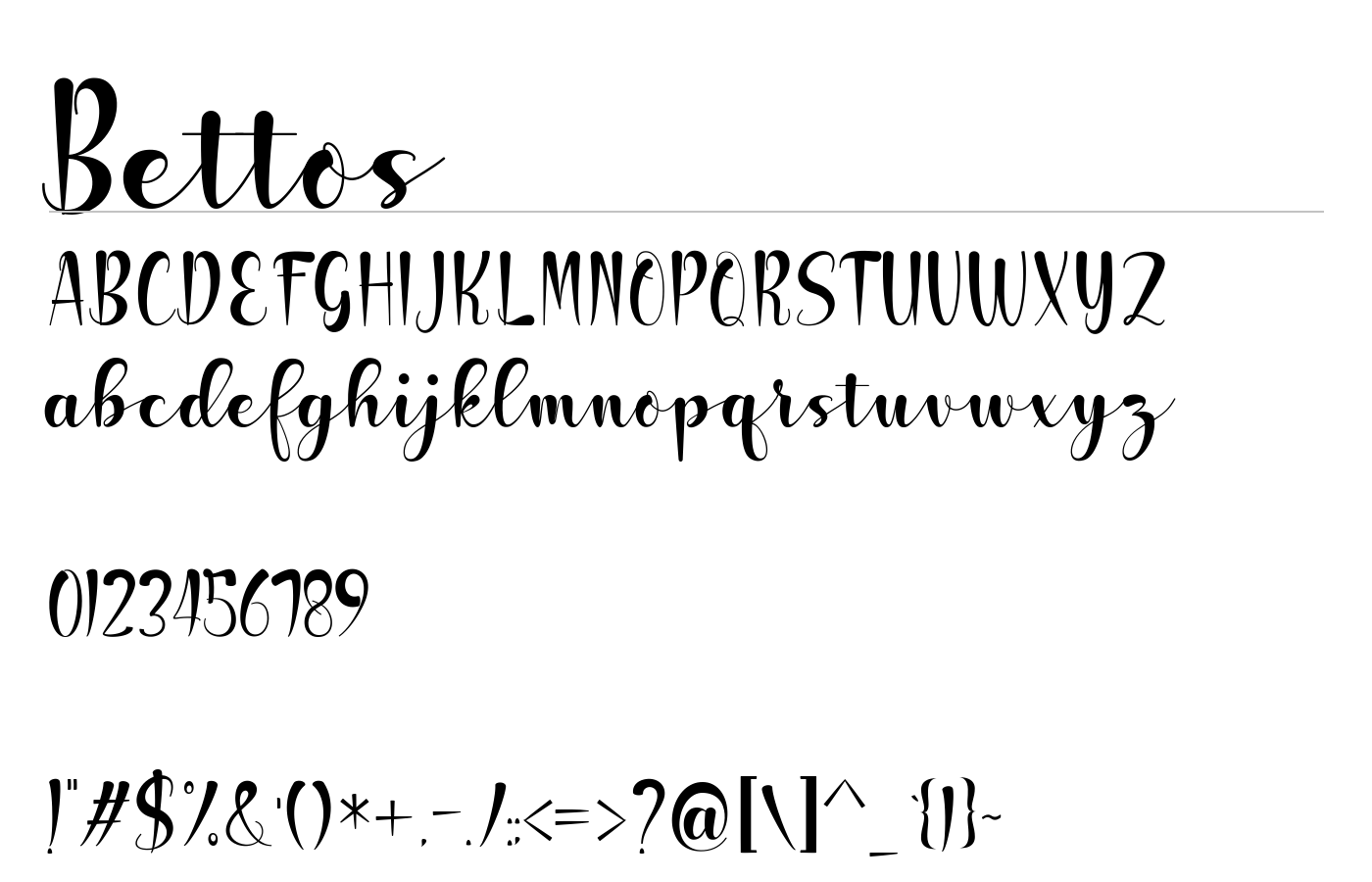
Bettos is a playful and elegant script font with tall, slender letterforms that combine smooth curves and delicate strokes. Its unique mix of thick and thin lines, along with quirky swashes and flourishes, gives it a hand-crafted, stylish feel perfect for branding, invitations, and creative headlines. This font works well where a friendly yet refined look is desired, adding personality and charm to any design.
Bettos Font
About Bettos Font
| Font family | Bettos Font |